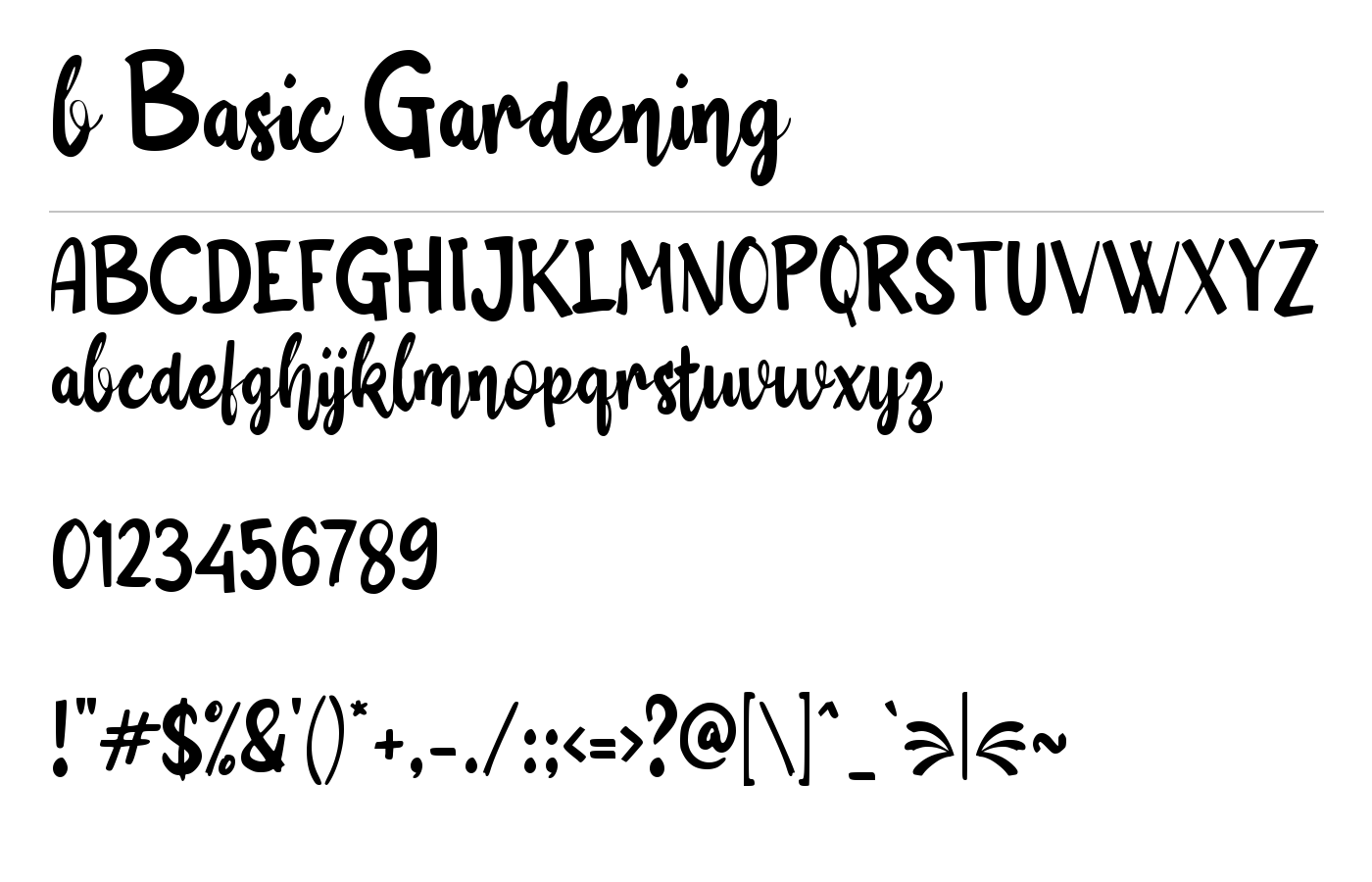
b Basic Gardening is a lively handwritten script font that balances playful charm with readability. Its uneven strokes and casual letterforms give it a warm, approachable personality, making it perfect for projects needing a friendly, informal touch such as lifestyle blogs, greeting cards, or boutique branding. This font works well in headlines and logos where a personal, human feel is desired without sacrificing clarity.
b Basic Gardening Font
About b Basic Gardening Font